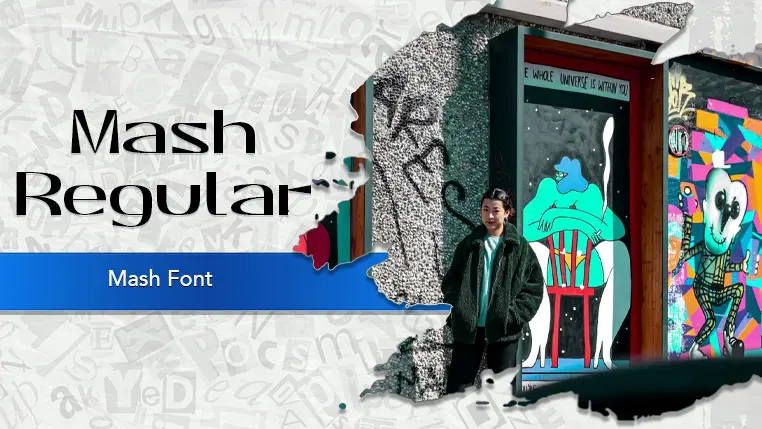
The Mash font family may be ideal for you if you enjoy working on an artistic design project. The lively, expressive look of this typeface, which was created by Leonhard Katschner, makes it ideal for Posters and flyers, Website banners and headers, Magazine and newspaper layouts, Advertisements and billboards, Book covers (especially for genres that need strong visual presence), While not for body text, it's excellent for section titles, pull quotes, or feature headlines in magazines and digital publications. and other light-hearted visual projects.
Regular, Thin, Ultra Bold, Variable are the four primary font styles of the Mash font family. You may build dynamic, visually appealing text layouts with the distinct flair that each style offers. With crisp, readable lines and a relaxed tone.